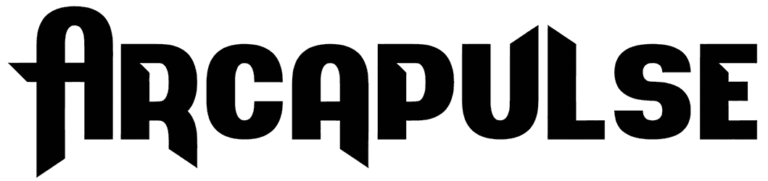
Helvetica Struggle Font
Designed byErik Vicente de Vera
Helvetica Struggle is a handmade font that combines modern and old styles well and can create a sense of elegance in your projects.
This DJ font has three weights and doesn’t support small letters. So, by combining its different styles, you can give a unique shine to any project you are working on. Helvetica Struggle is ready to serve if you want to design your festival cards differently or invite guests to your wedding with a special look.